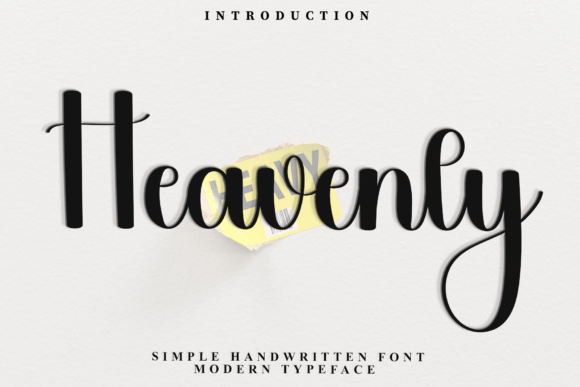
Enter Heavenly Font, a festive and merry typeface that captures the essence of the holiday season. With its decorative elements and whimsical flair, it adds a touch of enchantment to your designs. Perfect for greeting cards, gift tags, and holiday-themed projects, Heavenly Font brings a cheerful and nostalgic ambiance to your words. Its PUA encoding means you can access all of the amazing glyphs and ligatures with ease, making it a valuable addition to any designer’s toolkit.
Heavenly Font Key Features
- Font Family: Heavenly Font is a unique, hand-crafted font family designed to evoke a sense of elegance and sophistication. It consists of multiple styles, including Regular, Italic, Bold, and Bold Italic.
- Character Set: The font family includes a wide range of characters, including Latin, Cyrillic, and Greek alphabets, as well as punctuation marks and special characters.
- Unique Characteristics: The font features a distinctive, hand-drawn feel with intricate details and flourishes, making it ideal for use in high-end design projects, such as luxury branding, fine art, and publishing.
Heavenly Font Review
As a designer, I was excited to dive into Heavenly Font and see what it has to offer. Overall, I was impressed with its clean and elegant aesthetic, which makes it a great choice for a variety of projects. ✨
Here are some of the things that work well in Heavenly Font:
- Clean and minimalistic design that makes it easy to read
- Wide range of font sizes and styles to choose from
- Support for multiple languages, making it a great choice for global projects
- High-quality vectors that can be scaled up or down without losing detail
- Some of the font weights can look a bit too light or too heavy, which may not be ideal for certain projects
- Lack of bold or italic options for some of the font styles
- May not be the best choice for projects that require a lot of customization or unique typography
Overall, I think Heavenly Font is a solid choice for designers who want a clean and elegant font for their projects. While it may have some limitations, it’s a great option for a wide range of use cases. ⚠️
Tips for Getting the Most Out of Heavenly Font
Use the Heavenly Font for headings and titles to create a sense of elegance and sophistication.
Combine the Heavenly Font with other elegant fonts to create a unique and eye-catching design.
Experiment with different font sizes and colors to create visual interest and emphasis.
Alternatives to Heavenly Font
Playfair Display is a luxurious, high-end serif font that is perfect for creating a sense of opulence and sophistication. It is ideal for use in high-end branding, advertising, and editorial design. When to use: Luxury branding, high-end advertising, and elegant editorial design.
Compared to Heavenly Font, Playfair Display is more ornate and decorative, with a stronger emphasis on elegance and refinement. While Heavenly Font is more versatile and can be used in a wide range of contexts, Playfair Display is better suited for high-end, luxurious designs.
Didot is a classic, elegant serif font that is perfect for creating a sense of sophistication and refinement. It is ideal for use in high-end branding, advertising, and editorial design. When to use: Luxury branding, high-end advertising, and elegant editorial design.
Can I customize Heavenly Font to create a new font?